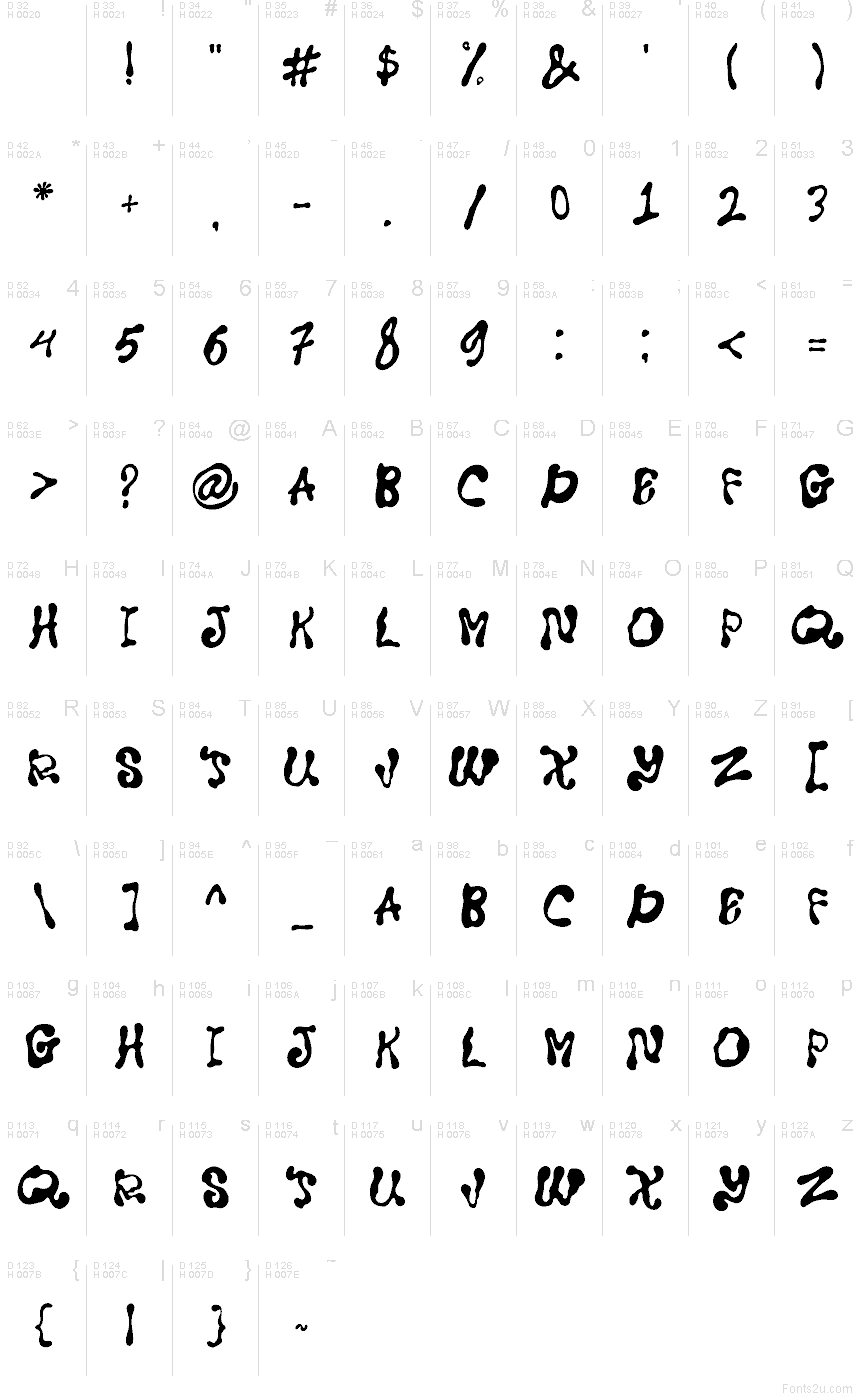
Aqua Monstera
Aqua Monstera font by Olalatype is a free groovy display typeface that looks like it’s been poured onto the page—thick, inky, and slightly wild. Each letter swells and drips with organic curves, echoing both splashing water and lush jungle leaves, giving your titles a wavy, hand-drawn energy. The rhythm is loose but readable, so even with all its personality it still holds together as a strong, unified wordmark.
Using Aqua Monstera, your headlines instantly feel like surf posters, psych-rock covers, or tropical festival branding. This free font works beautifully for packaging, event flyers, beach bars, eco-conscious brands, YouTube thumbnails, and bold social graphics that need a splashy, offbeat voice. Set it large to let the blobby contours shine, and pair it with a simple geometric sans for body copy to keep layouts balanced and legible.